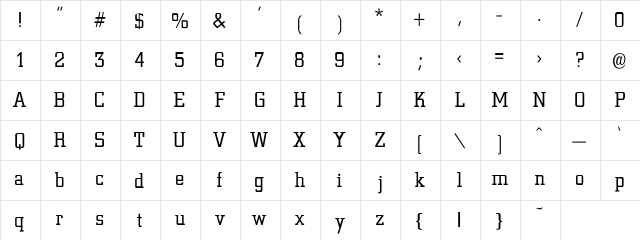
Barton Light Regular
Design Context for Barton Light Typeface
Barton Light offers clean, dependable letterforms without strong stylistic allegiance, making it a practical choice for designers who need flexibility. The delicate stroke weight brings airiness and refinement to layouts.